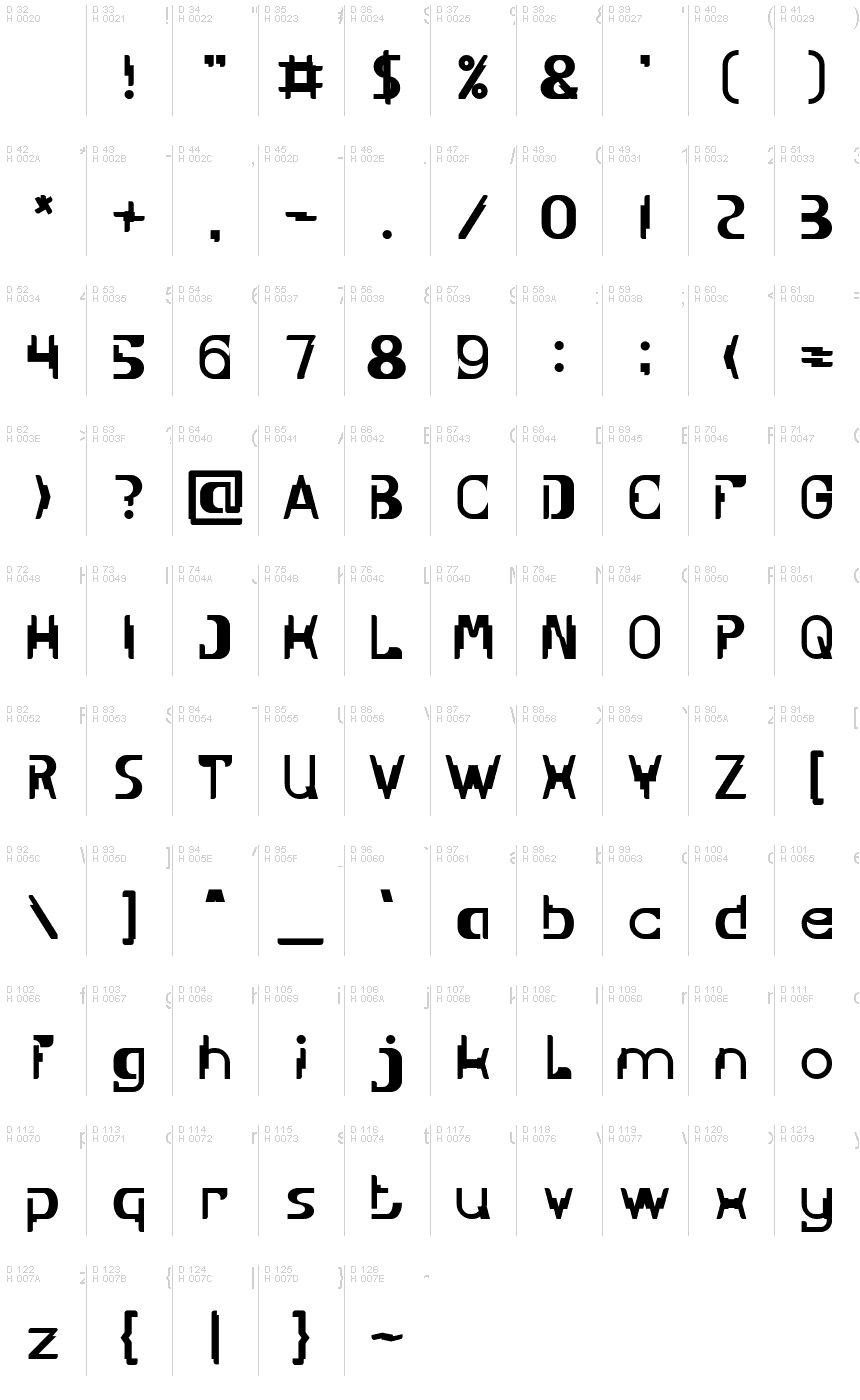
UNDER STAND Bold
UNDER STAND Bold by Weknow is the perfect display font for futuristic and technology-themed projects. Its bold weight and techno style give a strong and modern impression, making it suitable for branding, advertising, and digital designs. This font family also includes a variety of widths, from ultra-light to extra-bold, providing versatility in design layouts. Whether you're creating a sci-fi movie poster or a tech startup logo, UNDER STAND Bold can elevate your project with its sleek and edgy aesthetic. Get ready to impress with this trendy display typeface!